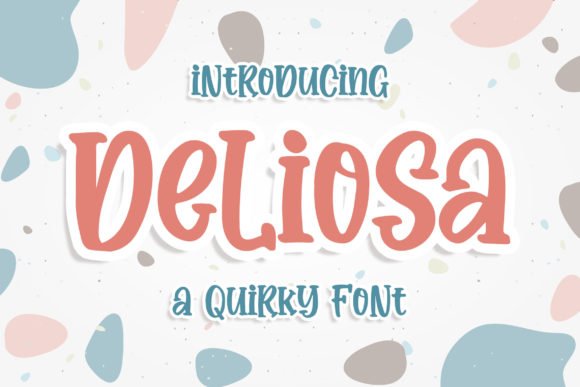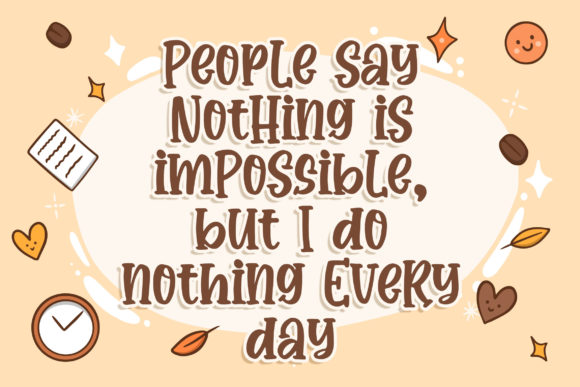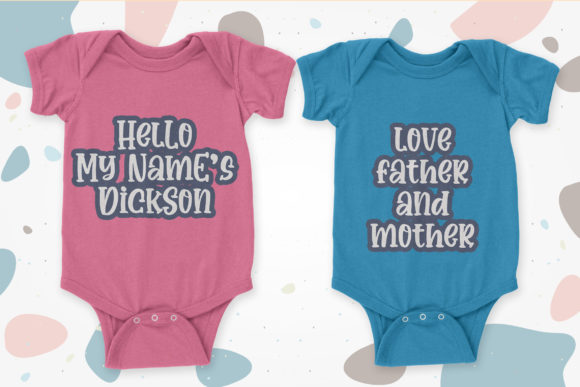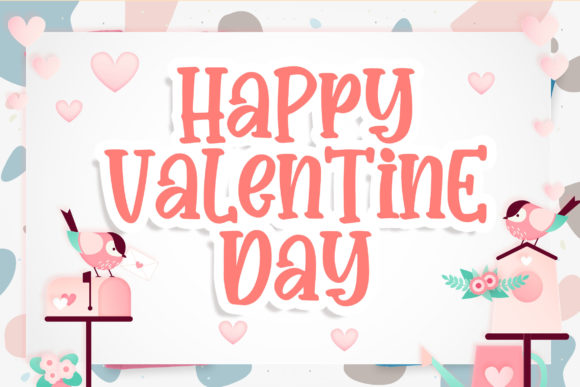
Deliosa Font: A Playful & Cute Handwritten Font for Cricut & DIY Projects!
About the Deliosa Font
Get ready to be inspired by Deliosa Font, a fresh and dynamic typeface for modern creators. Deliosa is a fun and playful script font. Incredibly versatile, this font fits a wide pool of designs, elevating them to the highest levels. Add this font to your favorite creative ideas and notice how it makes them come alive!
Deliosa’s playful energy makes it ideal for projects needing a touch of whimsy, such as children’s books, invitations, branding for cafes or boutiques, or social media graphics. It excels in headlines, short taglines, and logos, adding a hand-drawn feel. However, its script nature makes it less suitable for body text or UI elements where readability is paramount; long paragraphs in Deliosa would be difficult to read.
Consider pairing Deliosa with a clean sans-serif like Montserrat for a modern contrast, or a classic serif like Playfair Display for a more traditional, elegant feel. A geometric sans-serif like Futura could also work well for a bolder, more contemporary look, providing structural balance to Deliosa’s organic forms.
Deliosa’s overall personality is best described as friendly and approachable, with a touch of vintage charm. Its informal character makes it less appropriate for corporate branding that requires a more serious and formal tone.
Deliosa Font Usage Examples
Deliosa Font Example